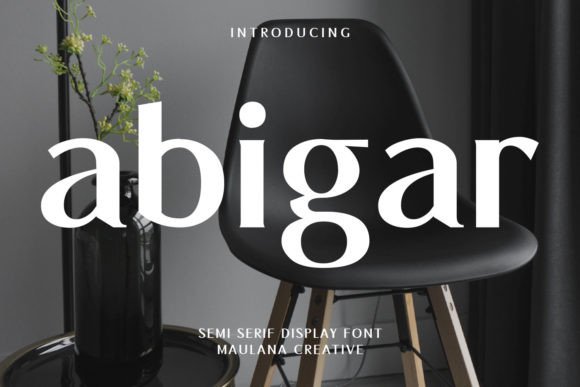
The Elegance of Abigar Font: A Designer’s Delight
I’ll never forget the time I was working on a luxury branding project for a high-end fashion client. I had spent hours pouring over design concepts, but something was missing – the perfect font. That’s when I stumbled upon Abigar Font, a serif font that exudes style and elegance. Its refined and graceful design instantly elevated my project, and I knew I had found the one. In this article, I’ll share my experience with Abigar Font, its features, and how to make the most of it in your designs.
Abigar Font: A Personal Review
- ✨ Refined and elegant design: Abigar Font boasts sleek lines and balanced proportions, making it perfect for luxury branding and high-end editorial design.
- ✅ PUA encoded: With PUA encoding, accessing glyphs and swashes is effortless, giving you more creative freedom.
- 💫 Timeless beauty: Abigar Font’s classic design ensures it will remain stylish for years to come, making it a great investment for any designer.
While Abigar Font is an excellent choice, there are a few things to keep in mind:
- 🤔 Limited use in body text: Due to its elegant and refined design, Abigar Font may not be the best choice for lengthy body text. It’s better suited for headings, titles, and short paragraphs.
- ⚠️ Requires OpenType features support: To take full advantage of Abigar Font’s features, you’ll need to use design software that supports OpenType features.
The Story Behind Abigar Font
Abigar Font was designed with the goal of creating a serif font that exudes elegance and sophistication. Inspired by classic typography, Abigar Font’s designer aimed to create a font that would be perfect for luxury branding, high-end editorial design, and any project that demands a touch of timeless beauty and class.
Q: What is Abigar Font?
Abigar Font is a serif font designed for luxury branding, high-end editorial design, and any project that demands a touch of timeless beauty and class.
Q: Is Abigar Font PUA encoded?
Yes, Abigar Font is PUA encoded, making it easy to access glyphs and swashes.
Q: Does Abigar Font support OpenType features?
Yes, Abigar Font supports OpenType features, allowing you to access glyphs, swashes, and stylistic alternates.